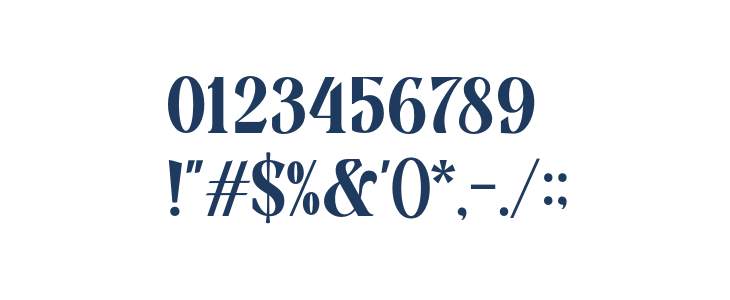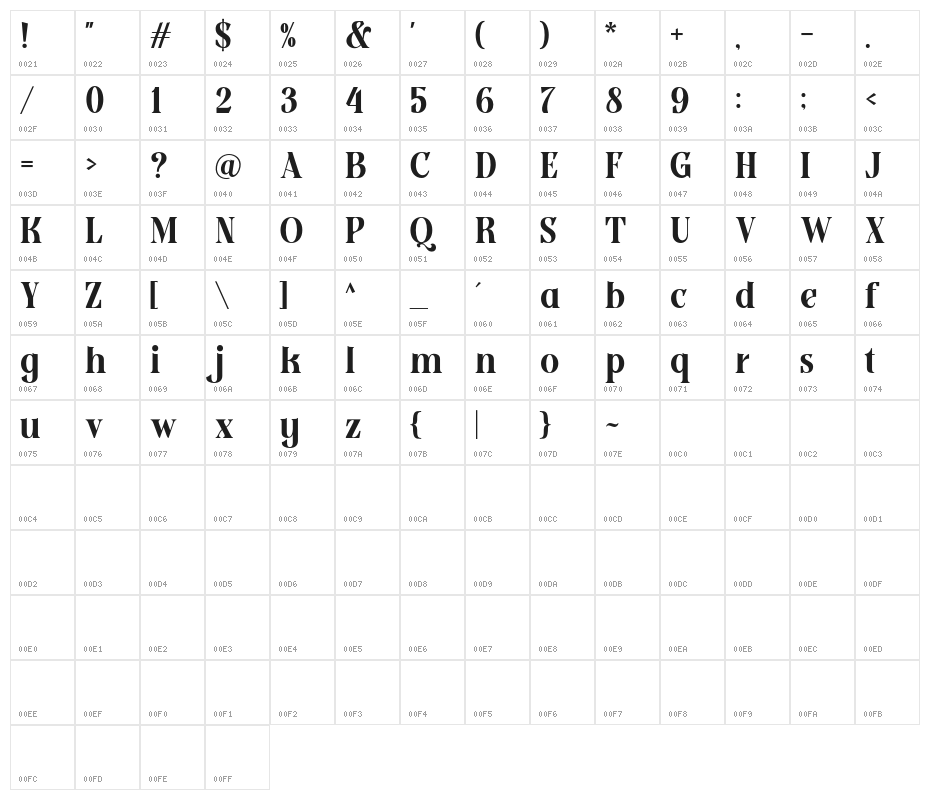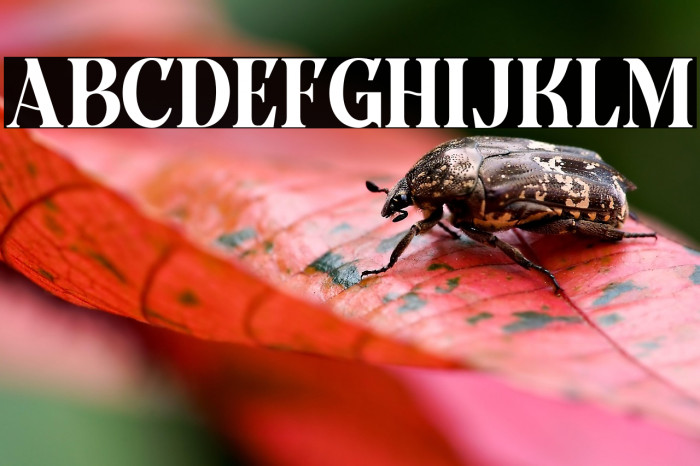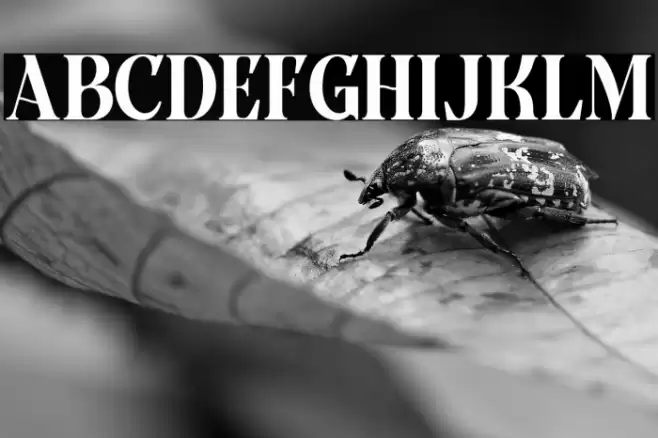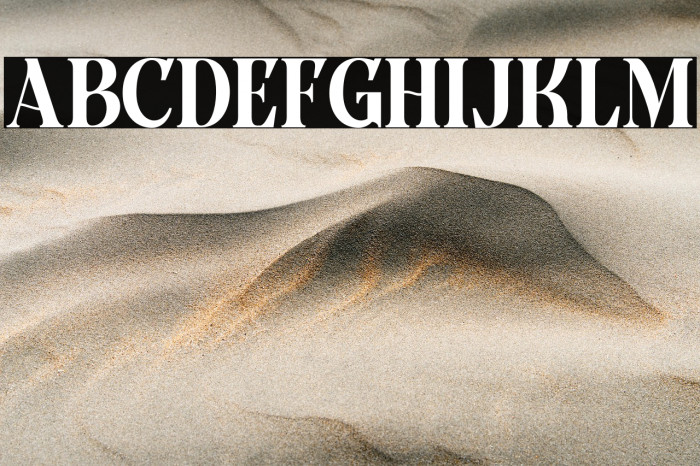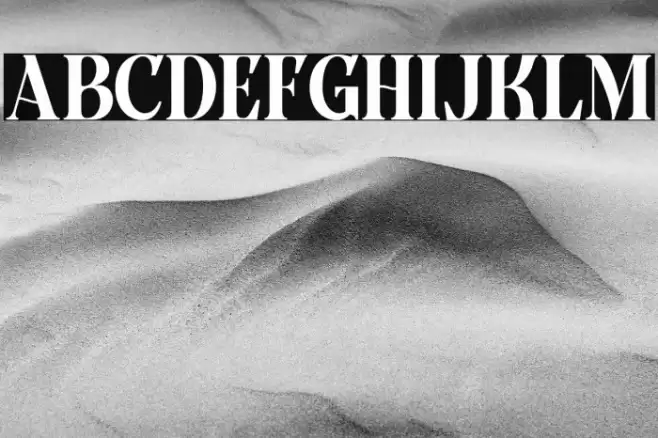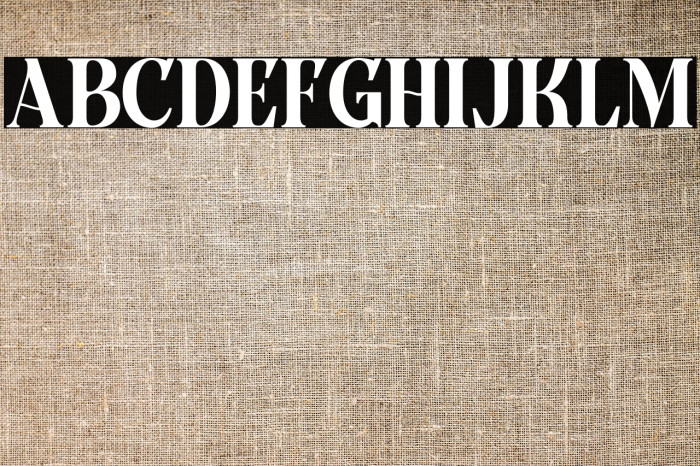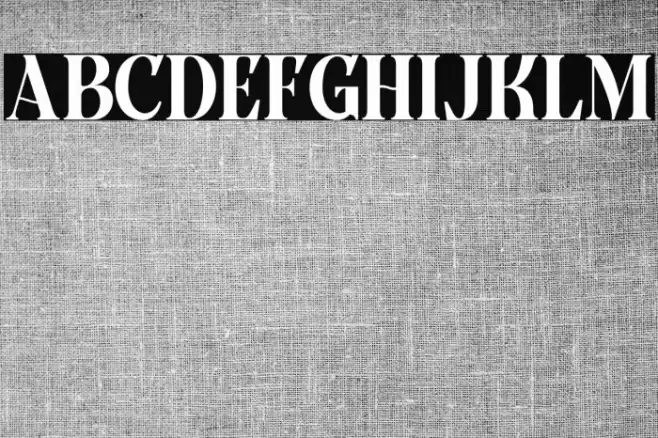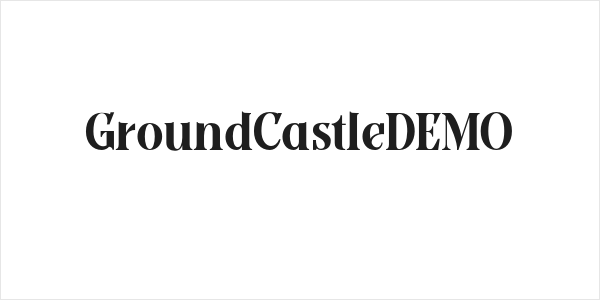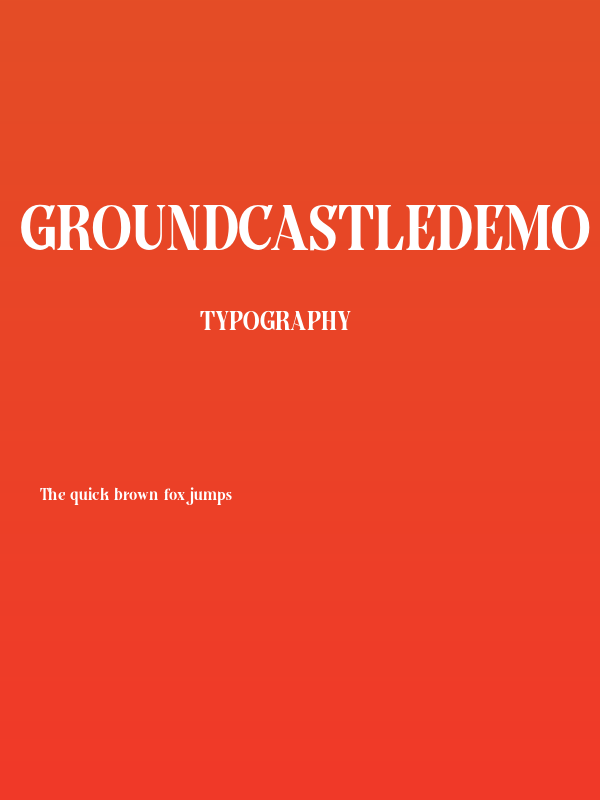
GroundCastleDEMO Font
GroundCastleDEMO Description
This font features a bold and striking design with high contrast between thick and thin strokes, giving it a dramatic and elegant appearance. The serifs are pronounced and add a classic touch to the overall style. The uppercase letters are tall and commanding, while the lowercase letters maintain a consistent and harmonious flow. The numbers are equally bold, ensuring readability and impact. Special characters are designed with the same attention to detail, making them stand out. This font is suitable for projects that require a strong and sophisticated presence.
| Proposed Projects | Ideal for use in branding, editorial design, book covers, and luxury product packaging. |